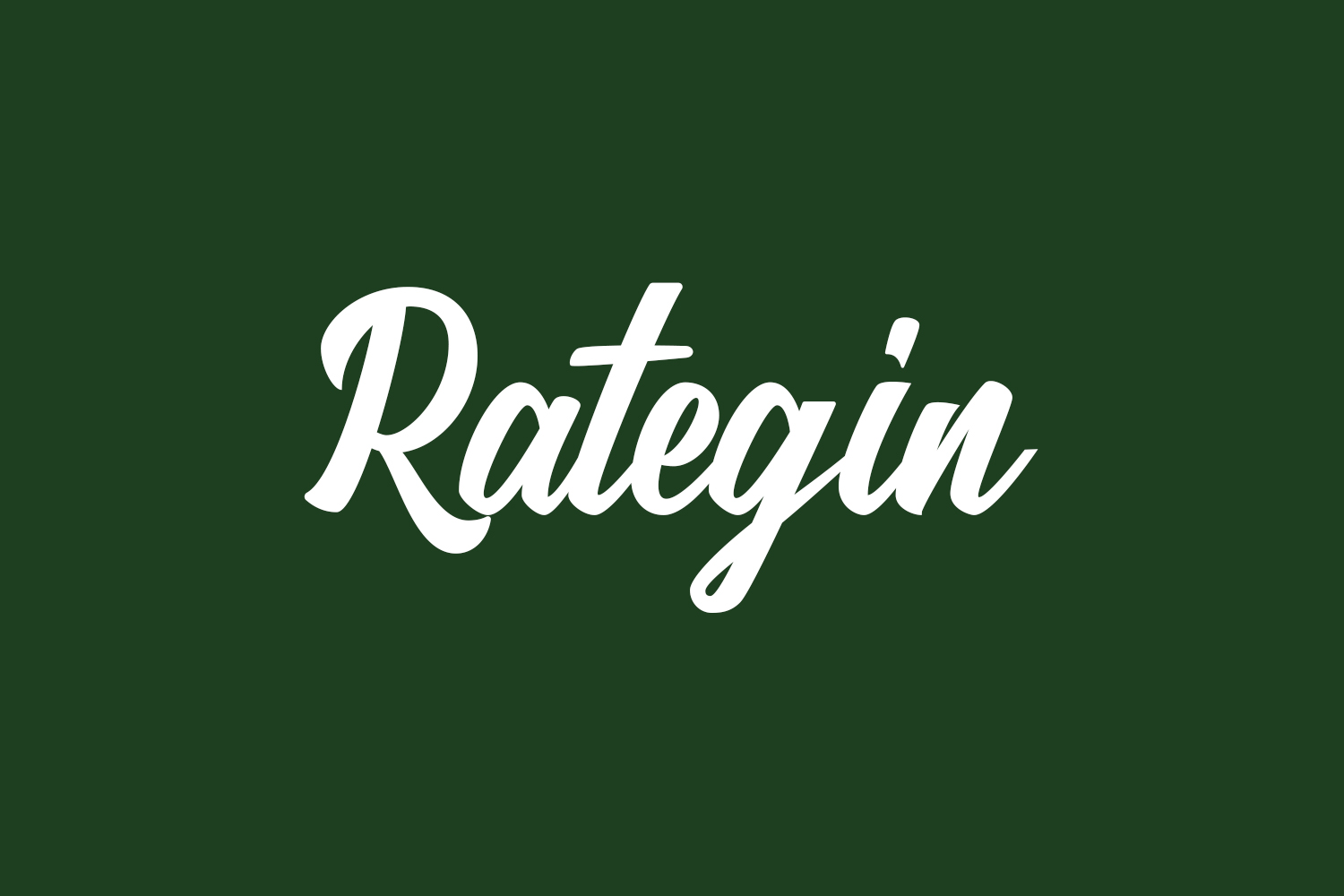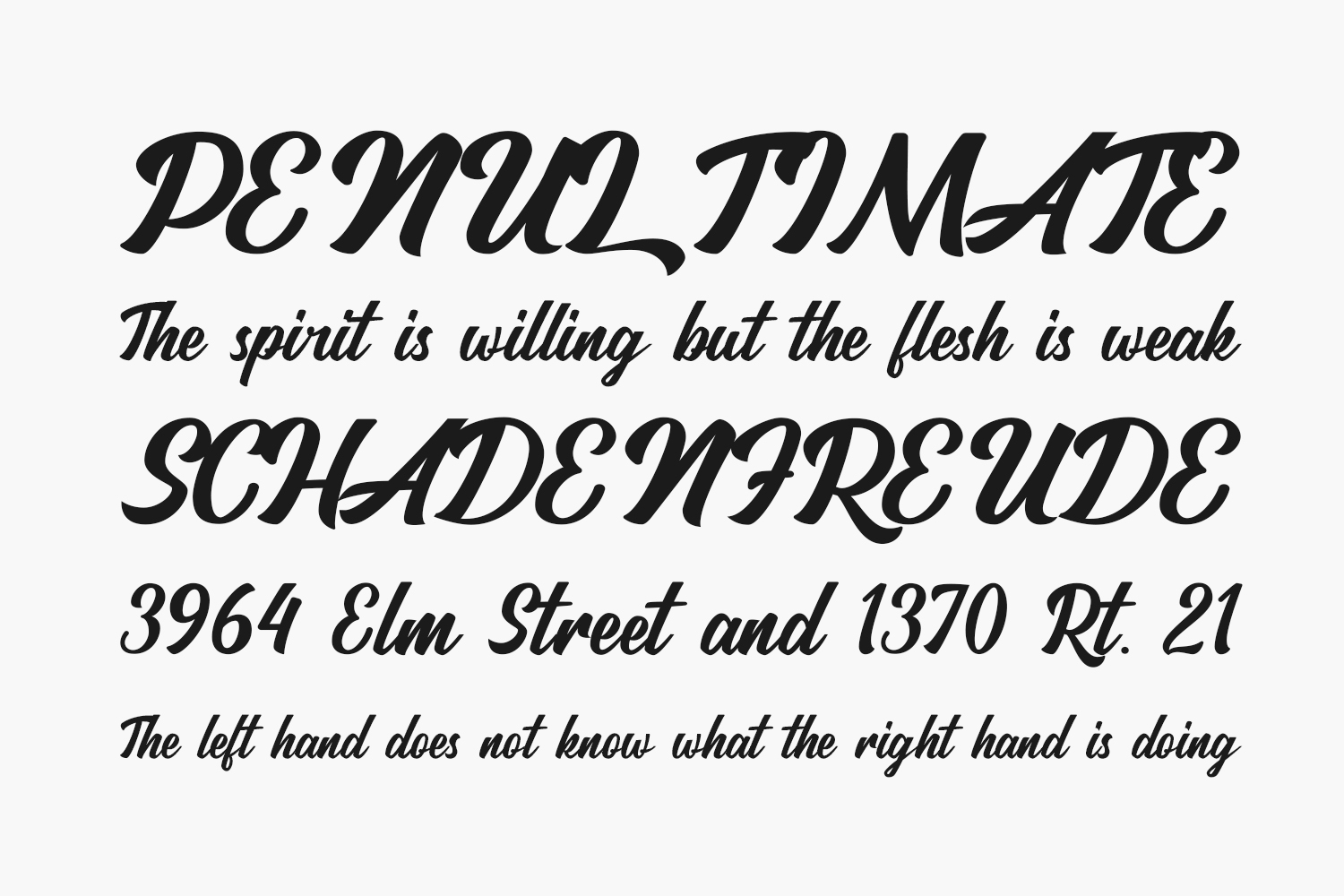
Rategin Free Font is a beautiful and vintage styled script font. It reads as strong, confident, and dynamic and can add tons of nostalgic character to your designs. Rategin Free Font was designed by StringLabs and is free for personal use only. Please purchase the full version for commercial use.